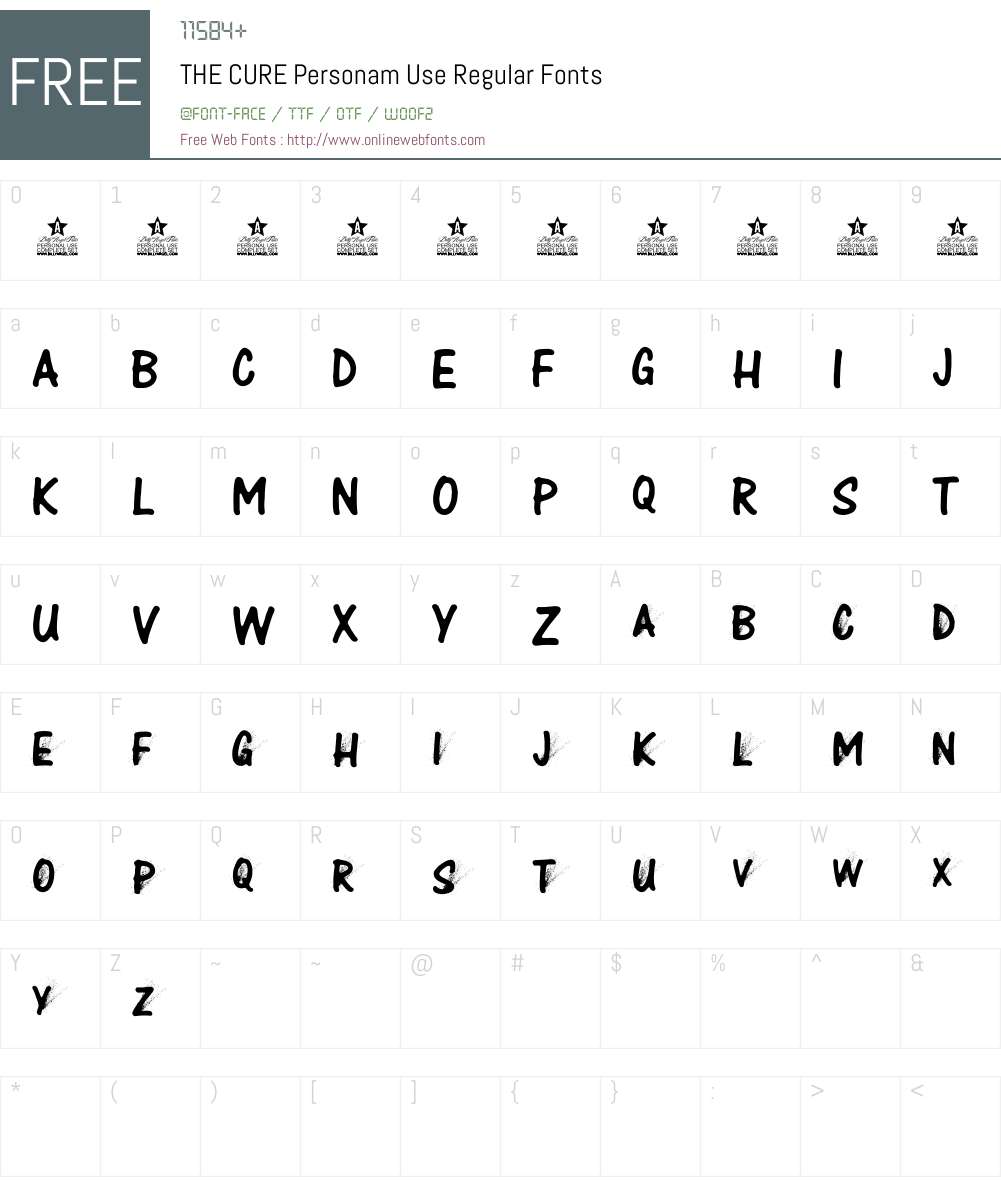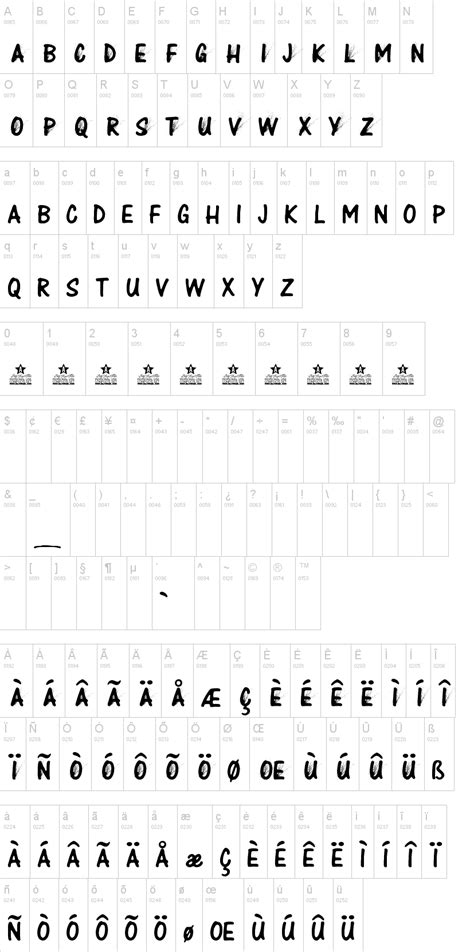
The Cure Font - It's freeware, but if you like it please consider making a small donation.:d fatcatfonts.com. The cure font is a display font that was made by billy argel, this font has a bold, clear, and innovative texture that can give a bold and whimsy touch to anything. The cure is a script type font that can be used on any device.
The Cure Font - This font is partial and free for personal use. It's freeware, but if you like it please consider making a small donation.:d fatcatfonts.com. The cure font is a display font that was made by billy argel, this font has a bold, clear, and innovative texture that can give a bold and whimsy touch to anything. Click to find the best.
The Cure Font - The cure is a script type font that can be used on any device such as pc, mac, linux, ios and android. This font is based on the writing on the cure's kiss me, kiss me album. It's freeware, but if you like it please consider making a small donation.:d fatcatfonts.com. The cure font is a display font.
The Cure Font - Every font is free to download! The cure font is a display font that was made by billy argel, this font has a bold, clear, and innovative texture that can give a bold and whimsy touch to anything. This font is based on the writing on the cure's kiss me, kiss me album. This font is partial and.
The Cure Font - The cure, billy argel, trash, script. Free the cure font in ttf, woff2 or otf format. The cure font is a display font that was made by billy argel, this font has a bold, clear, and innovative texture that can give a bold and whimsy touch to anything. This font is based on the writing on the cure's kiss me,.
The Cure Font - Every font is free to download! The cure is a script type font that can be used on any device such as pc, mac, linux, ios and android. The cure fonts for websites and design projects. The cure font is a display font that was made by billy argel, this font has a bold, clear, and innovative texture that can.
The Cure Font - The cure is a script type font that can be used on any device such as pc, mac, linux, ios and android. The cure font is a display font that was made by billy argel, this font has a bold, clear, and innovative texture that can give a bold and whimsy touch to anything. Every font is free to download!.
The Cure Font - Every font is free to download! The cure fonts for websites and design projects. Looking for the cure fonts? The cure font is a display font that was made by billy argel, this font has a bold, clear, and innovative texture that can give a bold and whimsy touch to anything. The cure, billy argel, trash, script.
The Cure Font - The cure font is a display font that was made by billy argel, this font has a bold, clear, and innovative texture that can give a bold and whimsy touch to anything. This font is based on the writing on the cure's kiss me, kiss me album. The cure fonts for websites and design projects. Looking for the.
The Cure Font - This font is based on the writing on the cure's kiss me, kiss me album. This font is partial and free for personal use. It's freeware, but if you like it please consider making a small donation.:d fatcatfonts.com. Every font is free to download! The cure font is a display font that was made by billy argel, this.